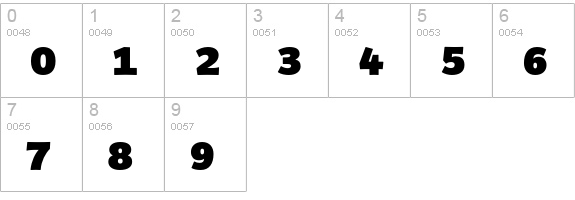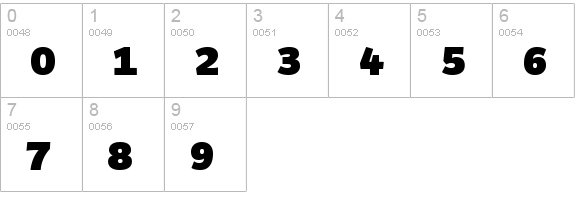
Giacomo MD Black is a maximum-weight, dramatic variant in the Giacomo typeface family \xE2\x80\x94 well suited to maximum-impact headlines, posters, and packaging.
Giacomo MD Black is a bold and striking font that exudes professionalism and sophistication. With its sleek lines and strong presence, this font is perfect for making a bold statement in your designs. Whether you're creating a logo, poster, or branding materials, Giacomo MD Black is sure to catch the eye of your audience. The best part? Giacomo MD Black is available for free download at FontsMarket.com. This means you can easily add this stylish font to your collection without breaking the bank. Don't miss out on the opportunity to elevate your designs with the timeless elegance of Giacomo MD Black. Download it today and watch your projects come to life with style and flair.